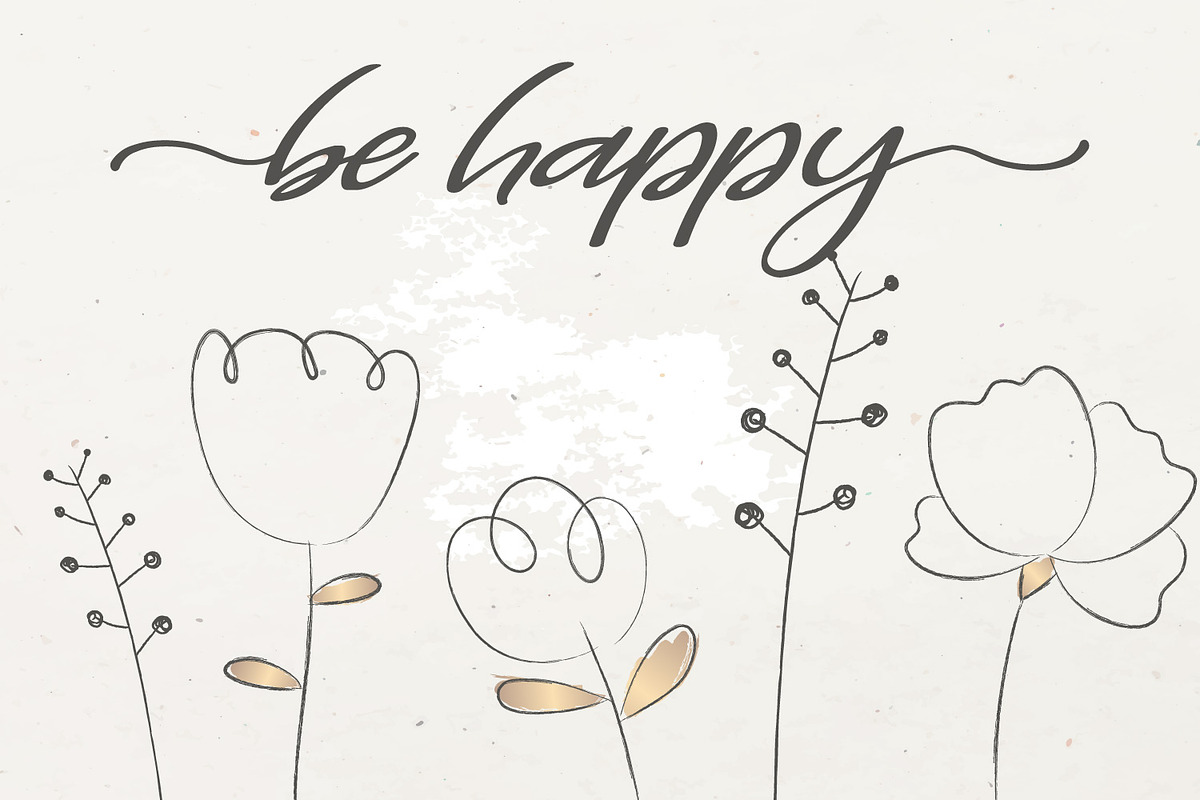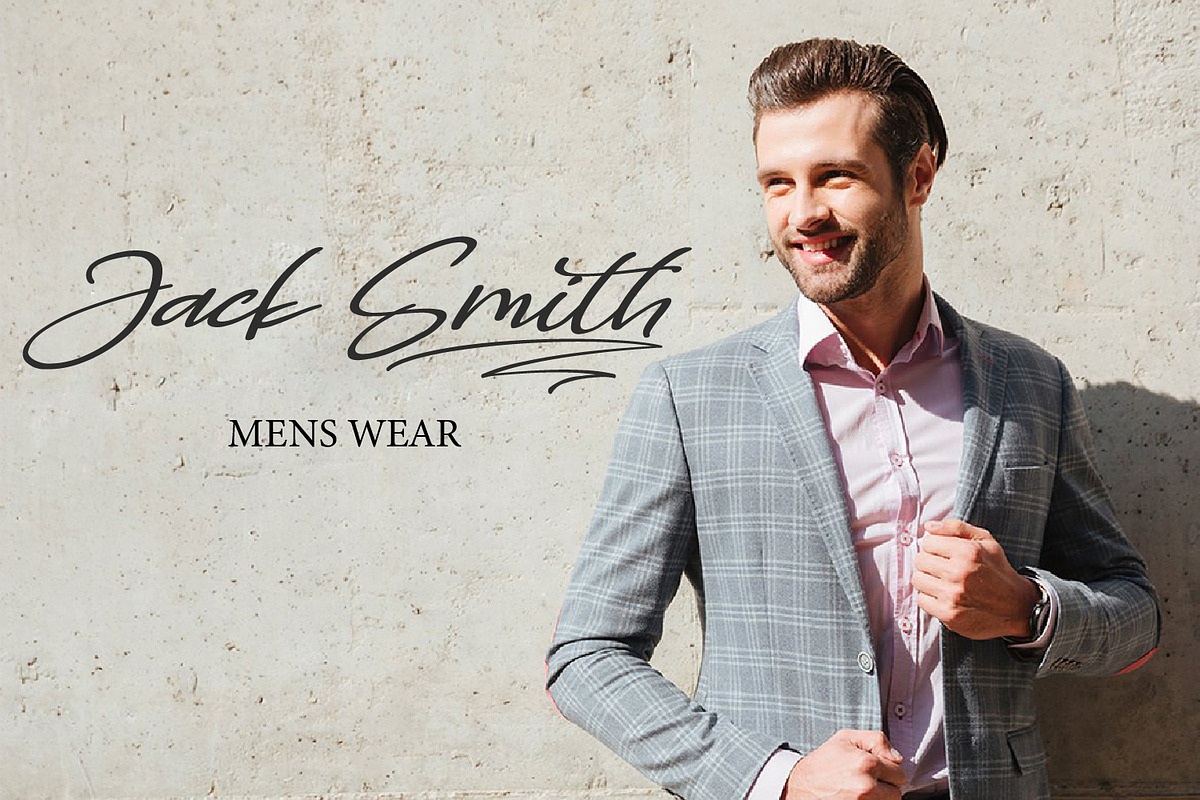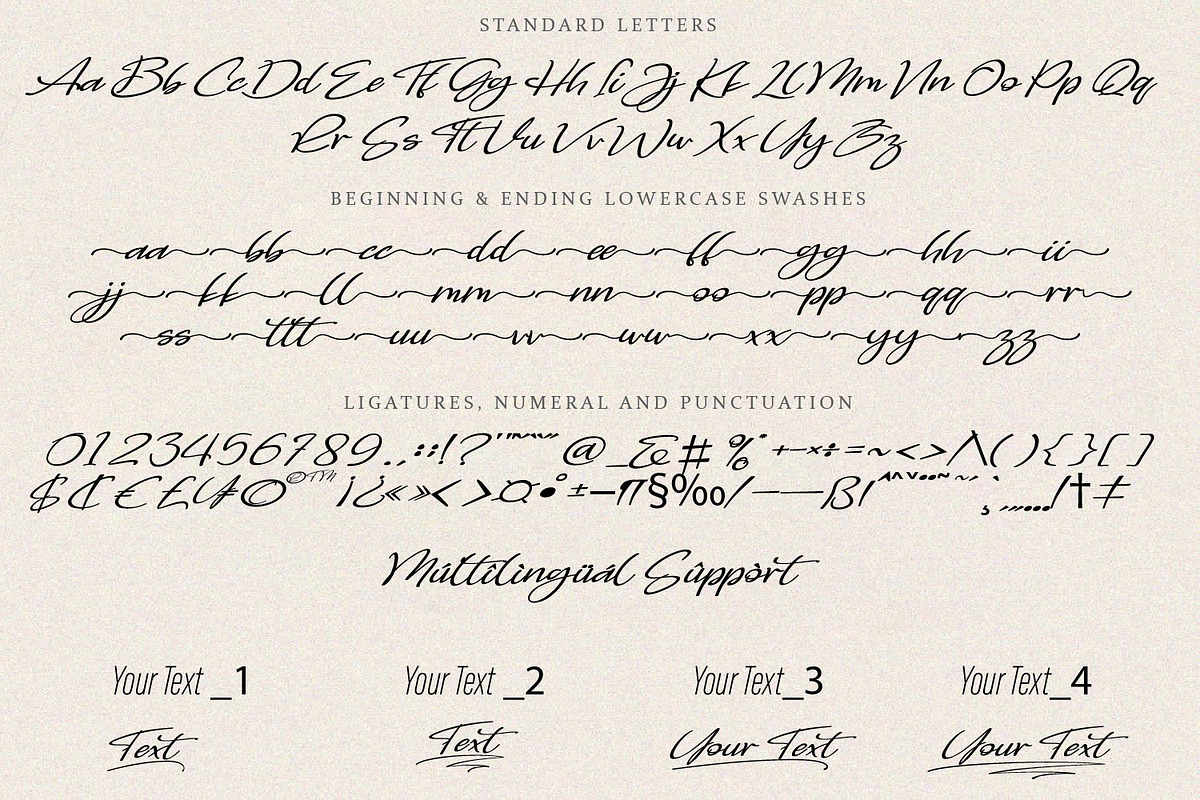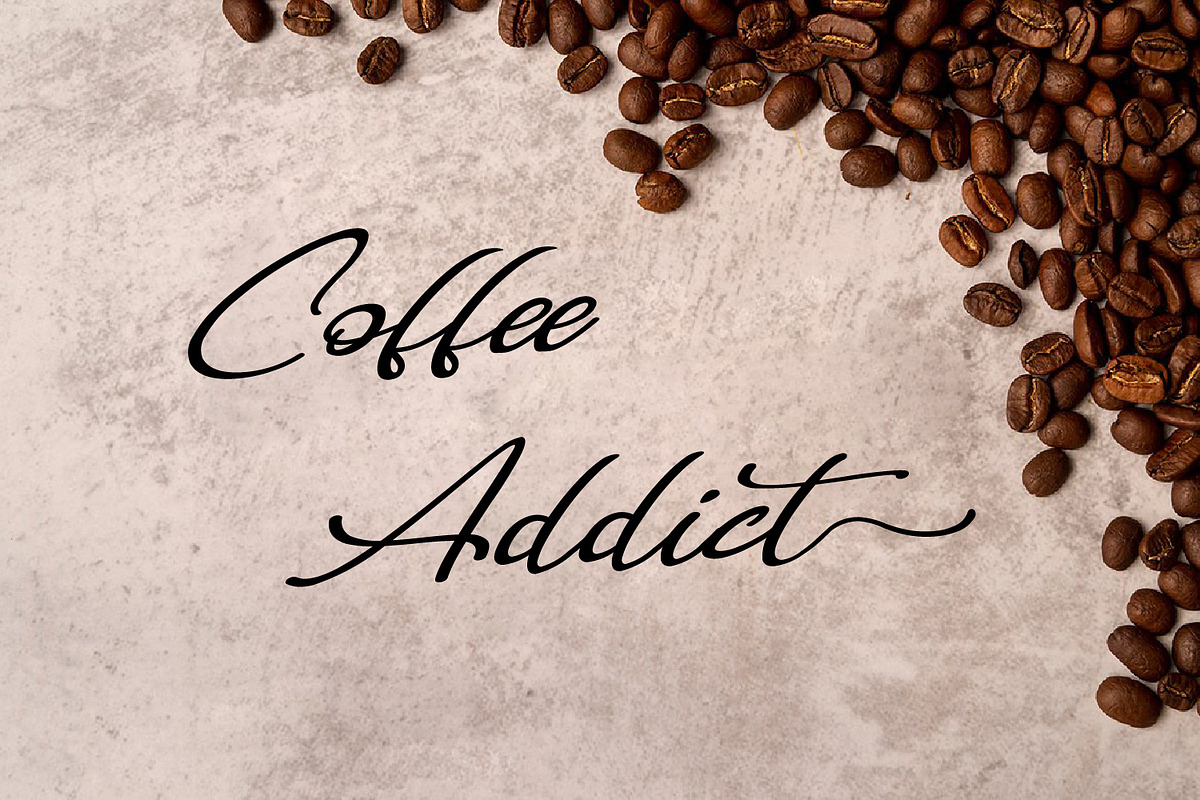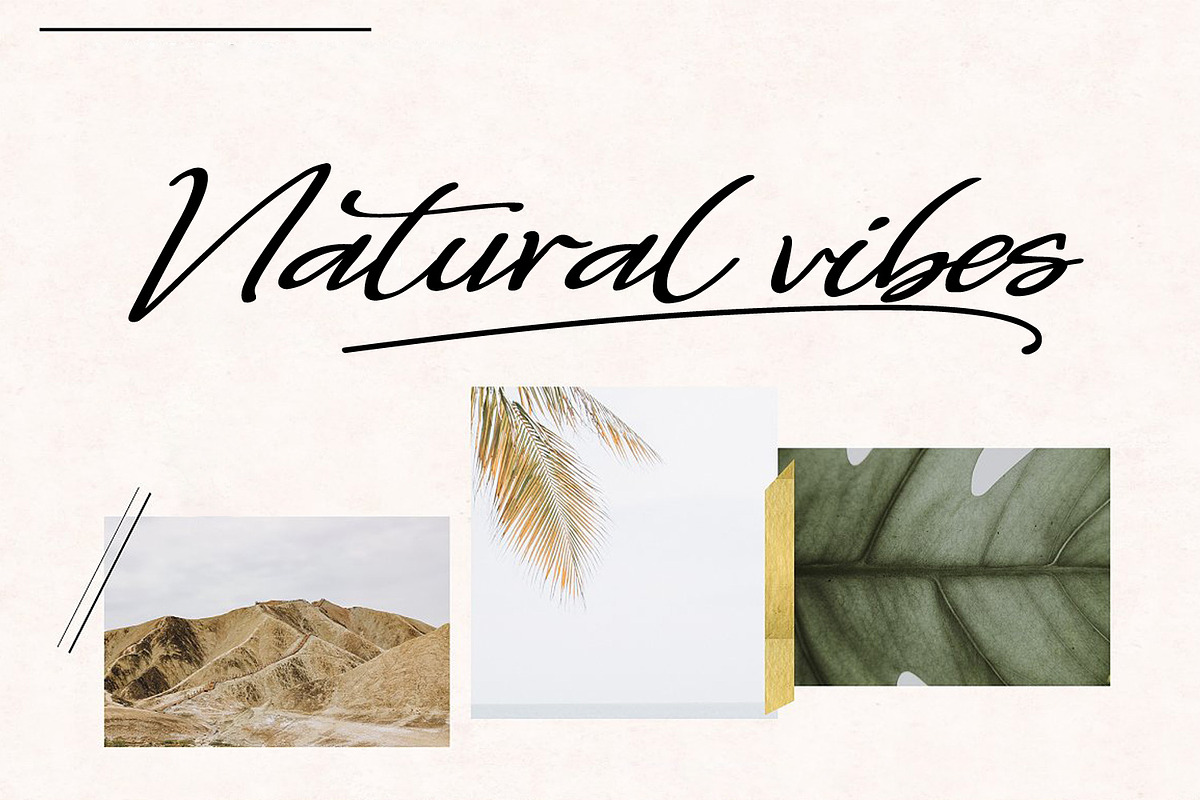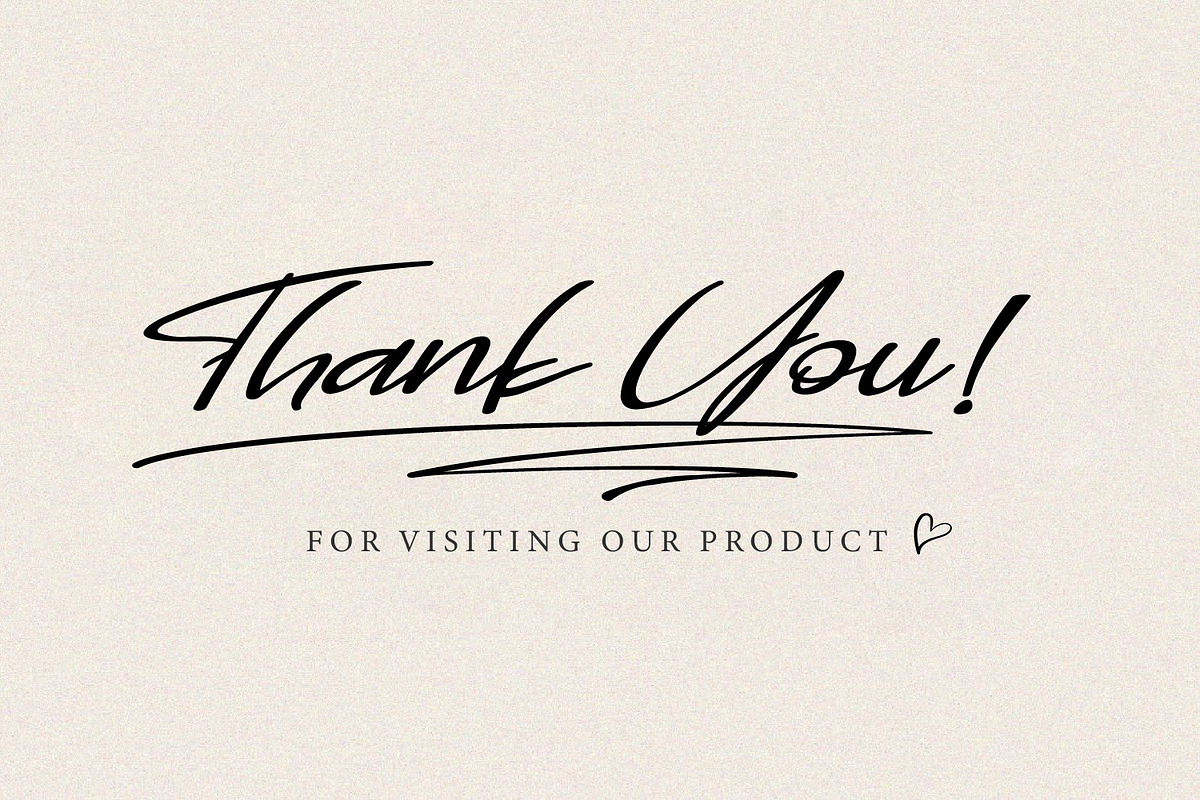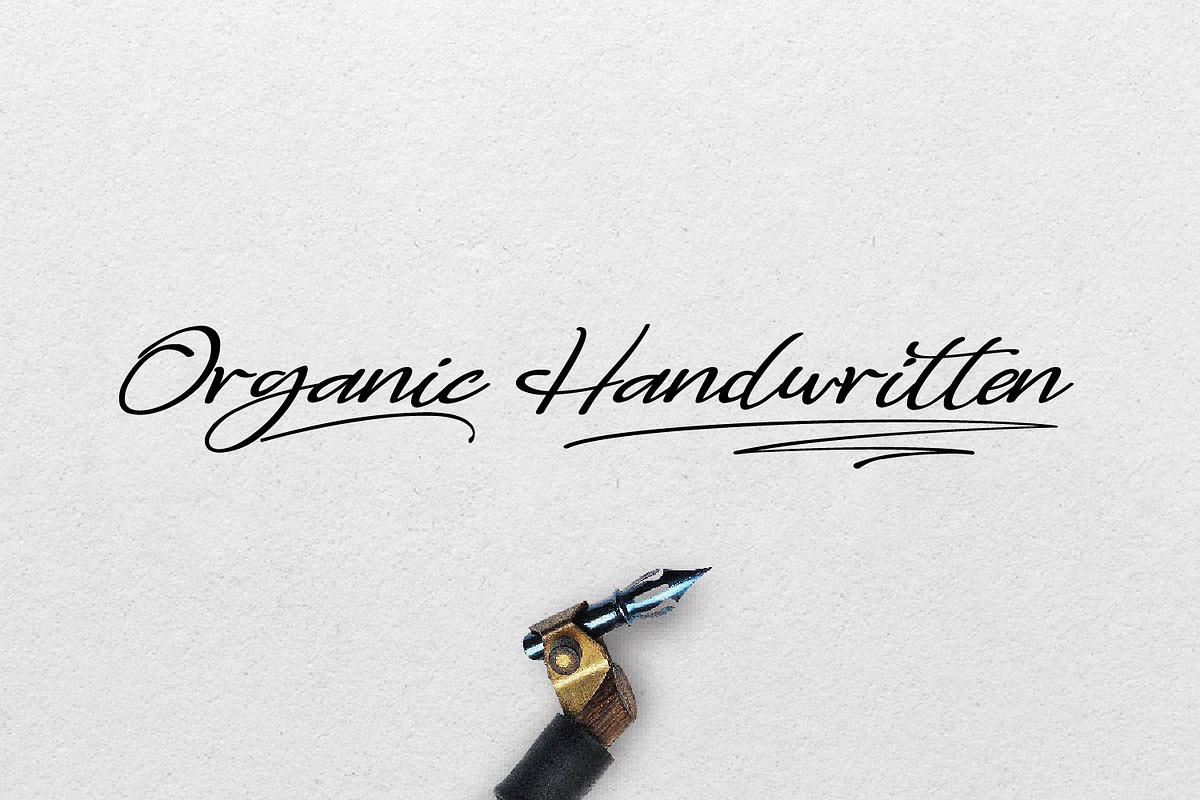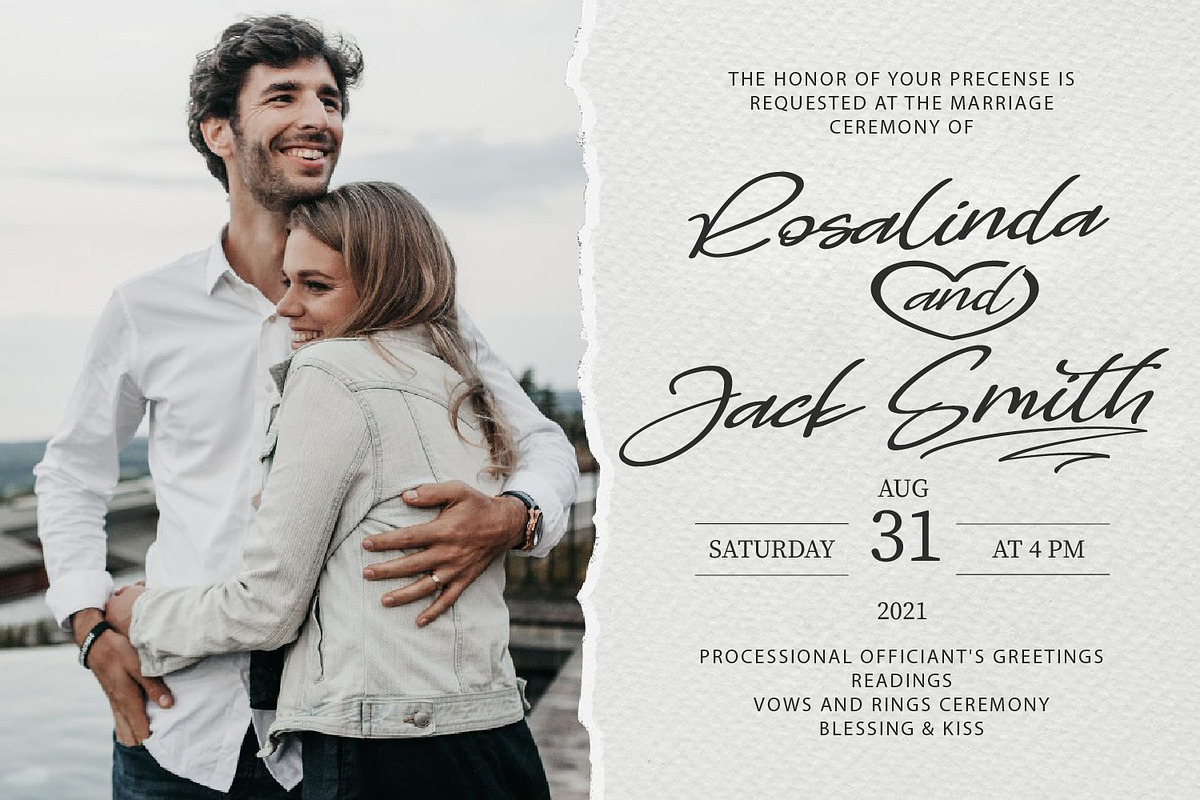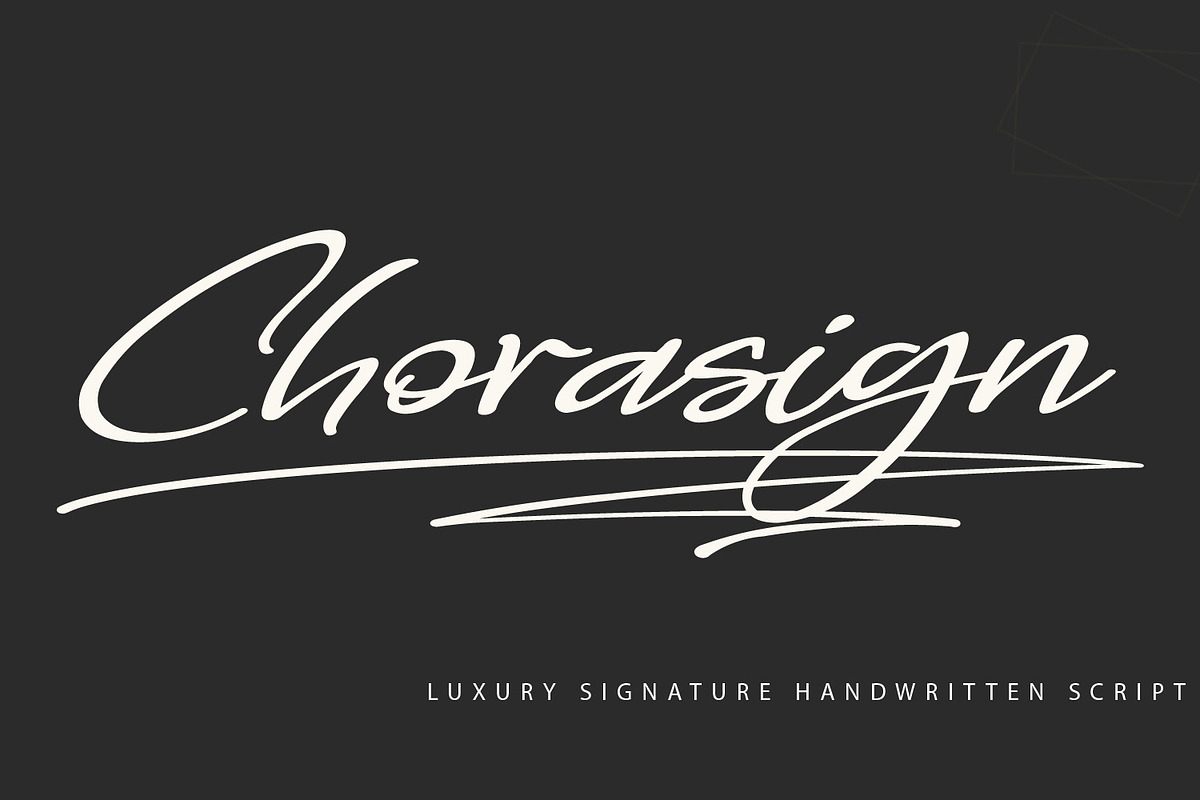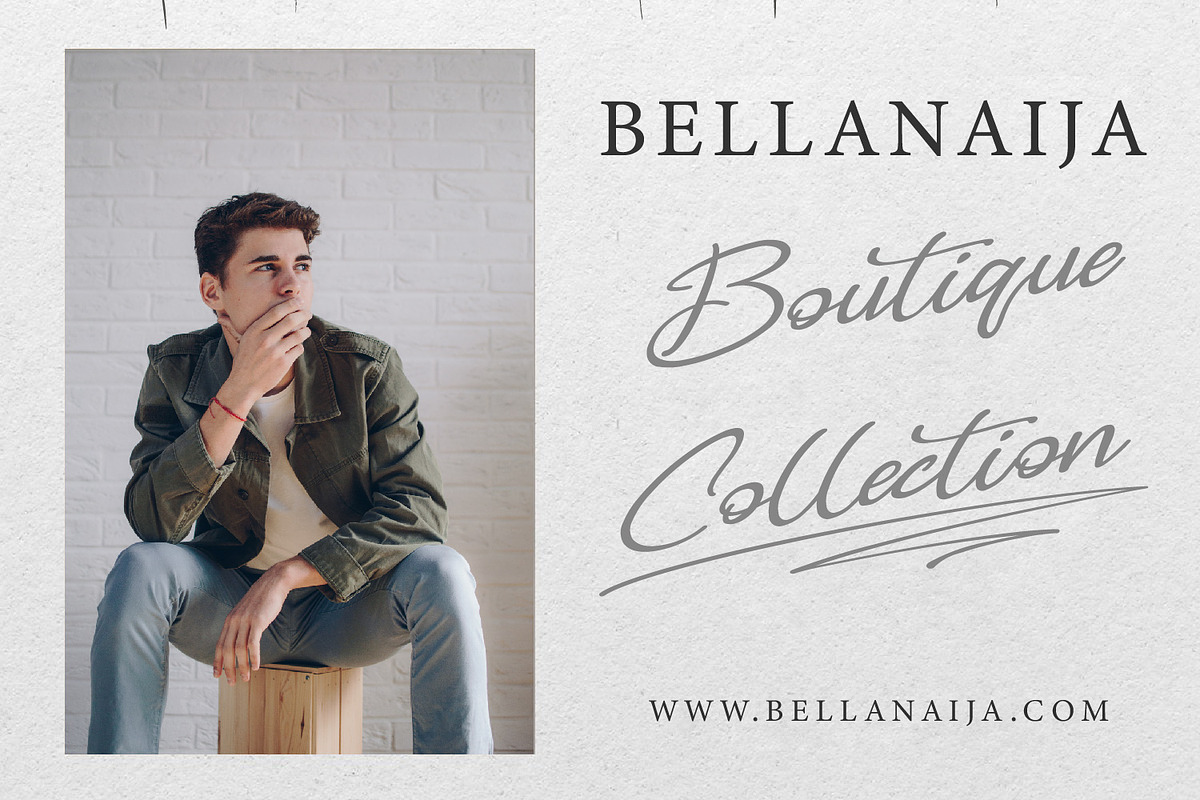
Chorasign | Handwritten Script
Chorasign is a stylish modern calligraphy font with casual chic flair. It is perfect for branding, wedding invites and cards, and maybe for red wine label. Chorasign includes full set of gorgeous uppercase and lowercase letters, numerals, a large range of punctuation. All lowercase letters include beginning and ending swashes, giving realistic hand-lettered style.
Main Features:
- Uppercase & Lowercase letters
- Punctuation and special characters
- Beginning lowercase swash: example: -a (hyphenlowercase letter)
- Ending lowercase swash: example: a- (lowercase letterhyphen)
- Short underline _1 or _2: example: Chorasing_1 / Chorasign_2
- Long underline _3 or _4: example: Chorasing_3 / Chorasign_4